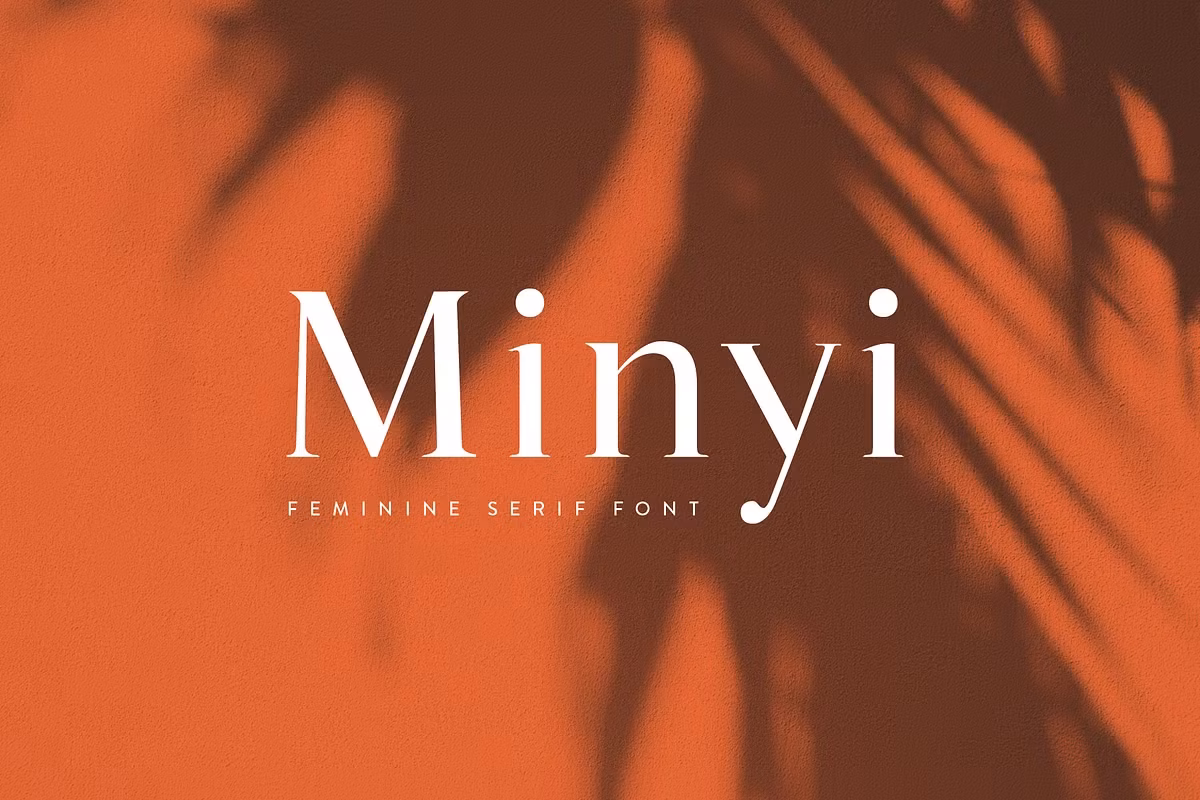
Minyi - A Feminine Serif Typeface Free Download
Minyi - A Feminine Serif Typeface Free Download is an elegant and graceful serif typeface designed with feminine touches and sophisticated charm. With its clean lines, delicate serifs, and balanced proportions, this font is perfect for a variety of design projects, including branding, wedding invitations, logos, editorial layouts, and more.
The Minyi font is ideal for projects that require a refined, chic look, making it perfect for luxury brands, fashion designs, or any creative work that needs an elegant, yet modern touch. Whether you're creating a minimalist logo or designing a sophisticated magazine layout, Minyi brings beauty and class to your typography.
Add a timeless touch of femininity and elegance to your designs with Minyi!